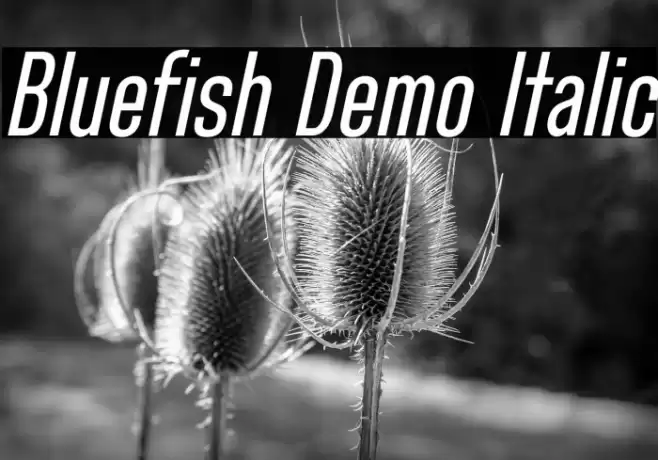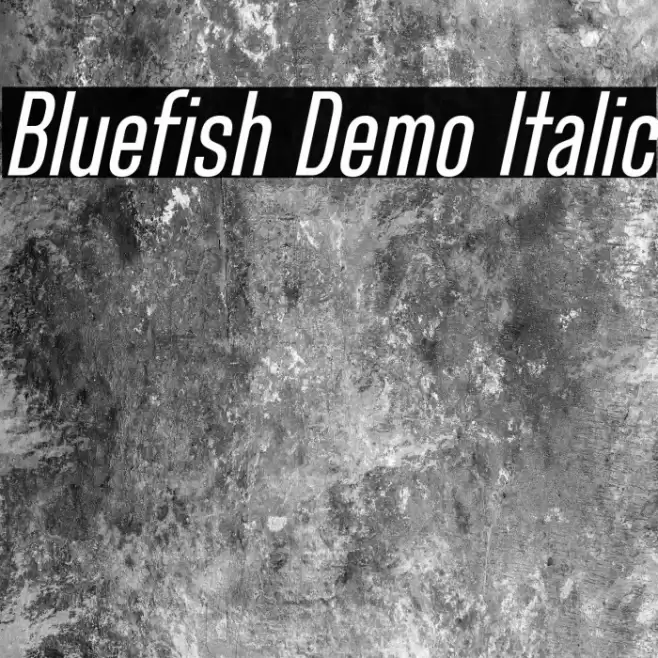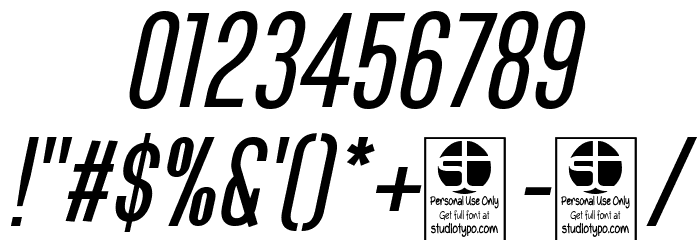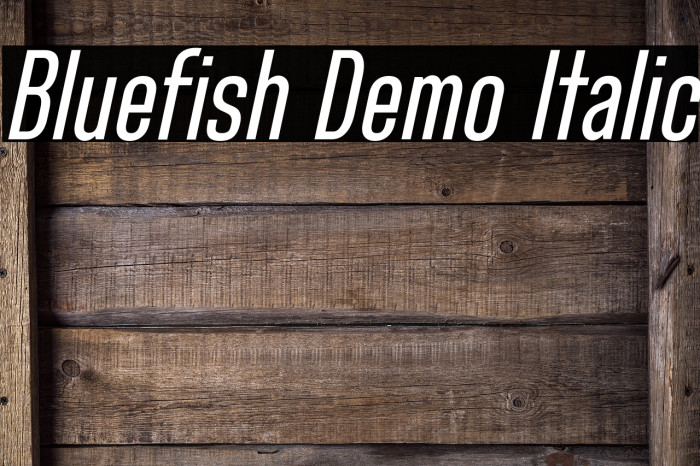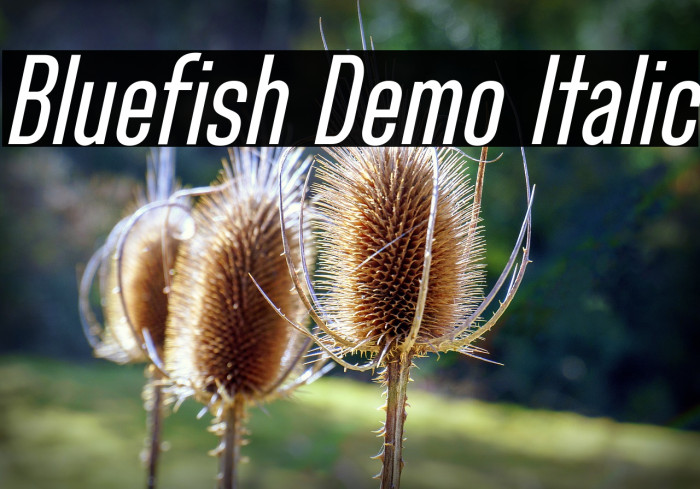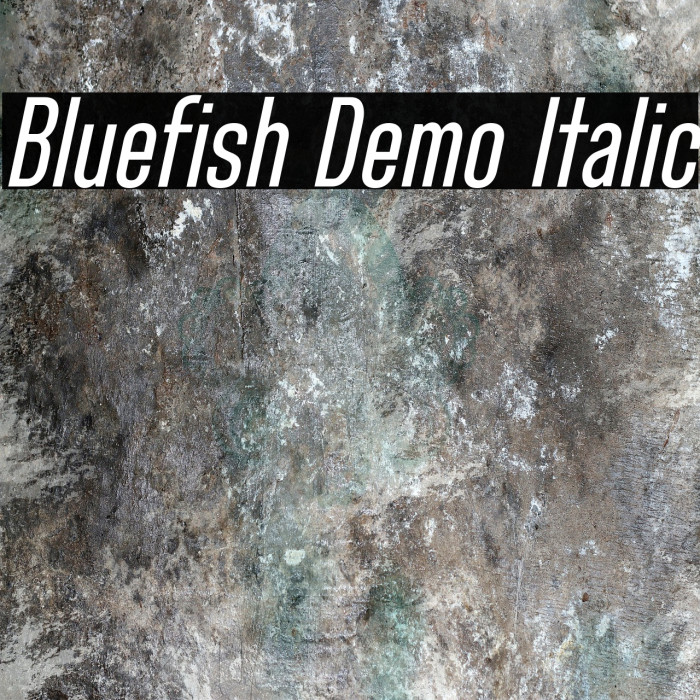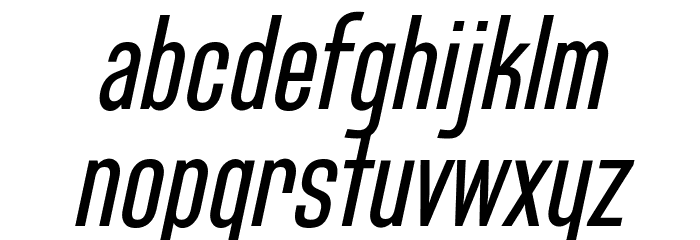
Bluefish Demo Italic Font
Bluefish Demo Italic Description
This font features a sleek, italicized design with a modern and dynamic appearance. The letters are slightly condensed, giving it a streamlined look that is both elegant and assertive. The characters have a consistent stroke width, contributing to a uniform and cohesive style. The slant of the letters adds a sense of motion and energy, making it suitable for contemporary and stylish applications. The font includes a full set of uppercase and lowercase letters, numbers, and a variety of special characters, ensuring versatility for different design needs.
A modern, italicized font with a sleek and dynamic style from Uncategorized fonts.
- Proposed Projects: Ideal for branding, advertising, and editorial design where a modern and stylish look is desired.